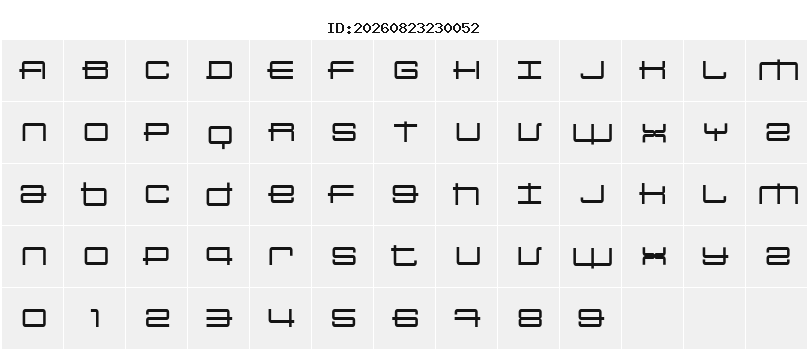
SansBroadway Preview
About SansBroadway.ttf
SansBroadway.ttf is a modern, elegant sans-serif font designed for ultimate readability and visual harmony. Perfect for branding, headlines, web design, and print materials.